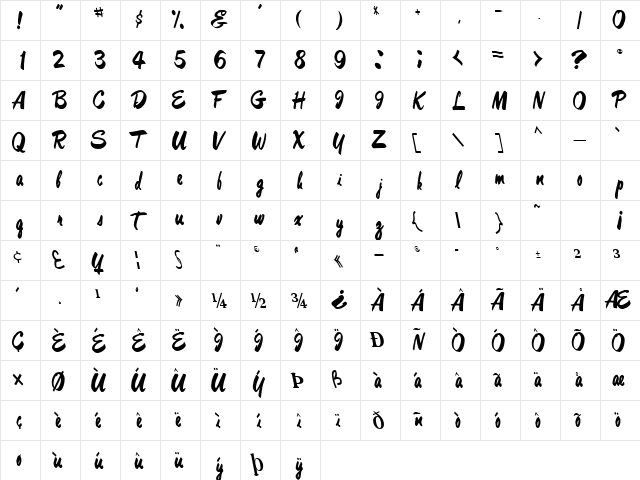
Clean Regular
Design Context for Clean Typeface
Clean is a composed and adaptable typeface that performs quietly and consistently across a wide range of design contexts.